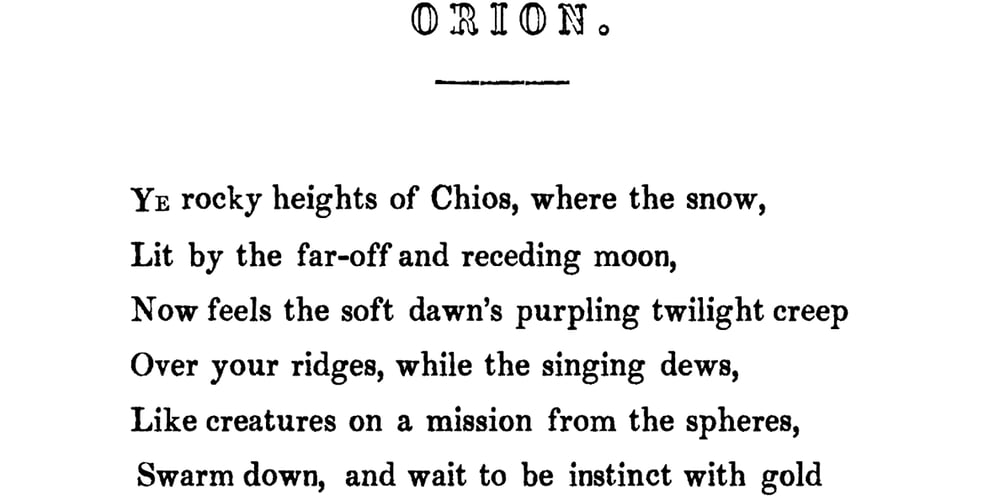
R H Horne Orion Font Family was designed by Gary Stephens and published by Antiochus. R H Horne Orion contains 6 styles and family package options. Edgar Allan Poe, in his review of “Orion,” says of R H Horne ;”for a man of high, of the highest genius, he unquestionably is”(Graham’s Magazine, March 1844, pp. 136-141 )The typeface is very elegant.Each character printed is different,– this mechanism produces the authentic feel. For example one “e” is different to another “e”. When typing, the letters appear to permutate slightly before becoming fixed.A pdf example of the style may be found here :https://www.behance.net/gallery/221615903/R-H-Horne-Orion-font